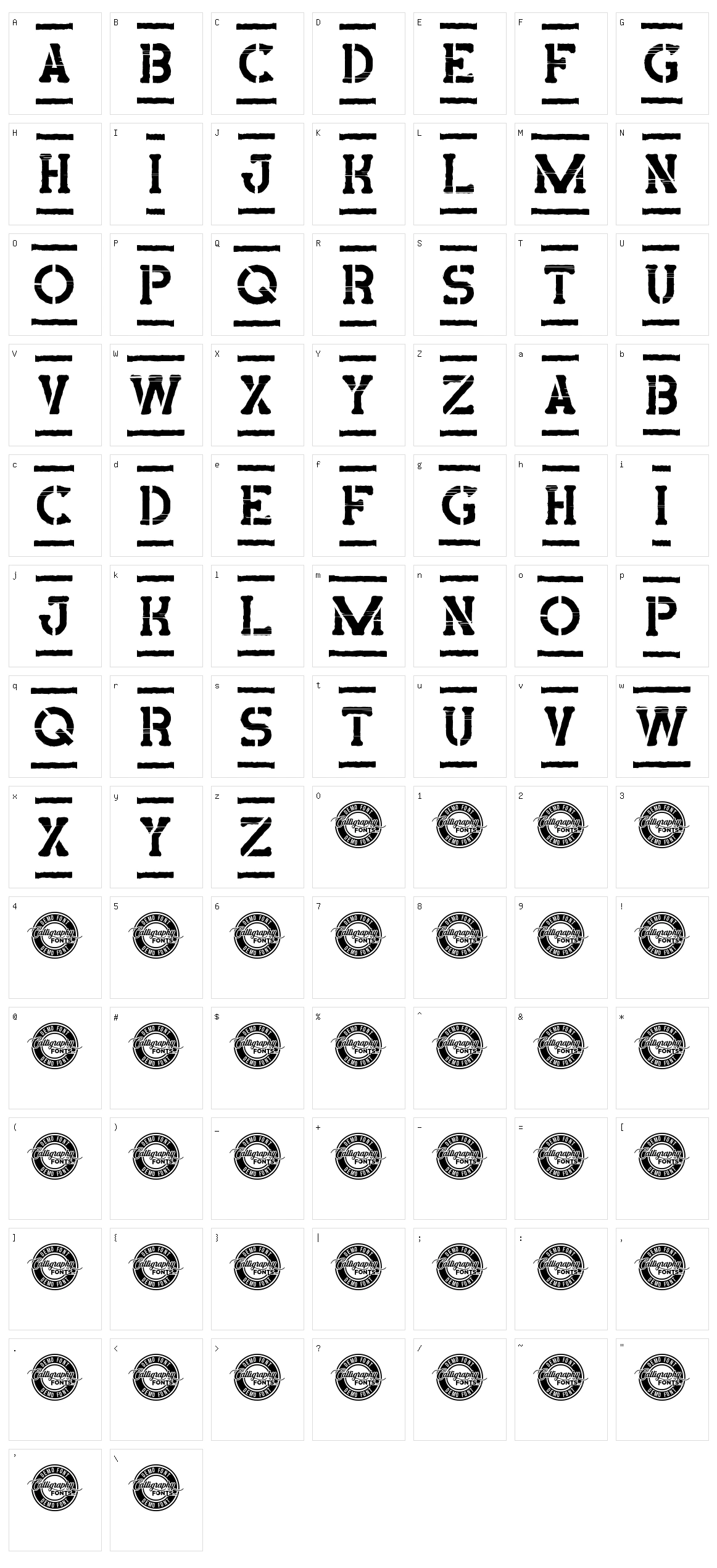
The free font Paid Stamp is carefully designed by Calligraphy Fonts, showcasing a thoughtful balance of creativity and usability and falls under the Stencil font style. When you download the ZIP file, it contains only 618.82 KB of font files, making it lightweight and quick to download. Please review the license details below to understand permitted usage and distribution rights. If license information is not available, we recommend using this font for personal projects only or contacting the author directly for commercial usage permissions.